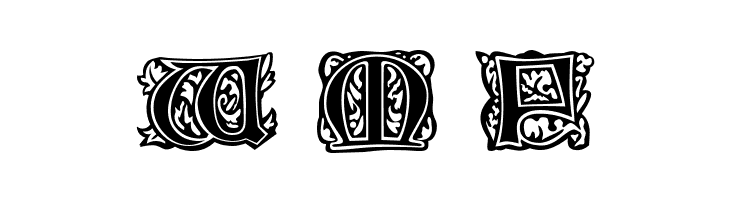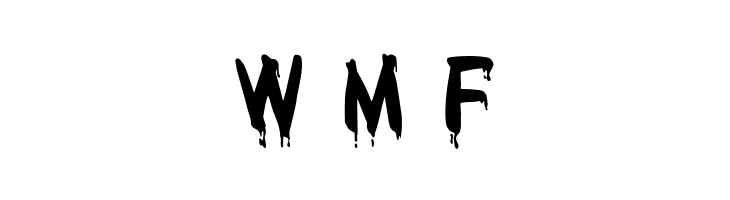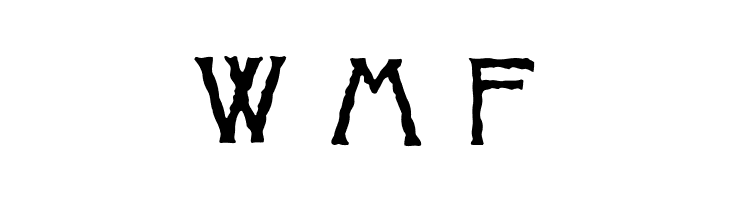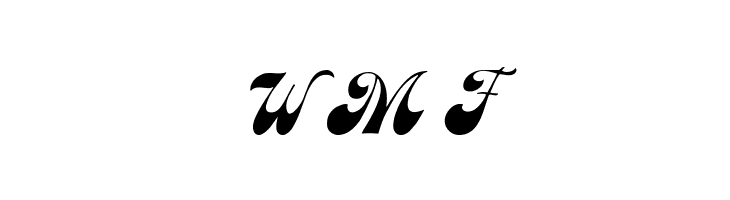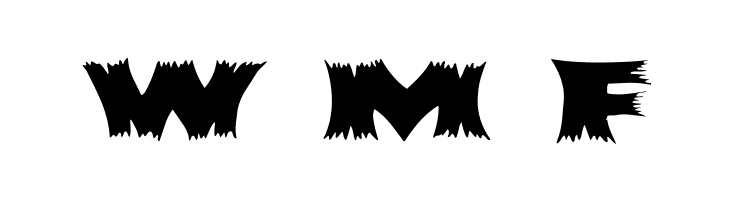
A bold, jagged font with a rugged, distressed style.
An ornate, decorative font with intricate floral patterns in each letter.
A bold, modern font with geometric shapes and sharp angles.
A bold, dripping paint-style font with a dynamic and artistic flair.
A rugged, hand-drawn font with a vintage, distressed appearance.
A bold, elegant script font with flowing, high-contrast strokes.
A decorative font with characters designed as unique fish shapes within diamond frames.
A bold, jagged font with a wild, energetic appearance.
Abstract and artistic representations resembling faces within diamond shapes.
An ornate and decorative font with intricate swirls and flourishes.